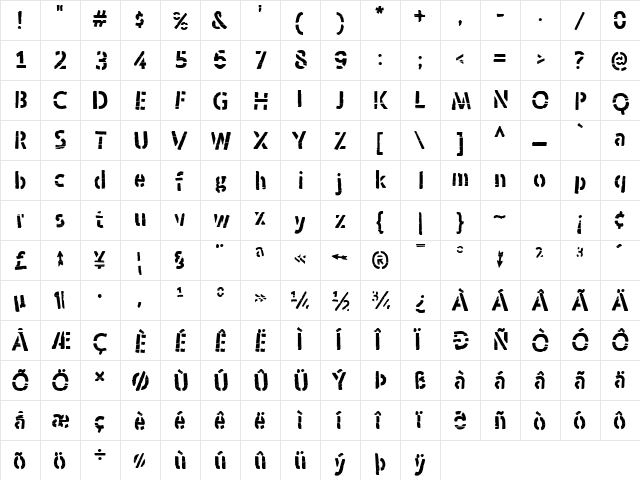
Skraype Regular
Design Context for Skraype Typeface
Skraype is a composed and adaptable typeface that performs quietly and consistently across a wide range of design contexts.